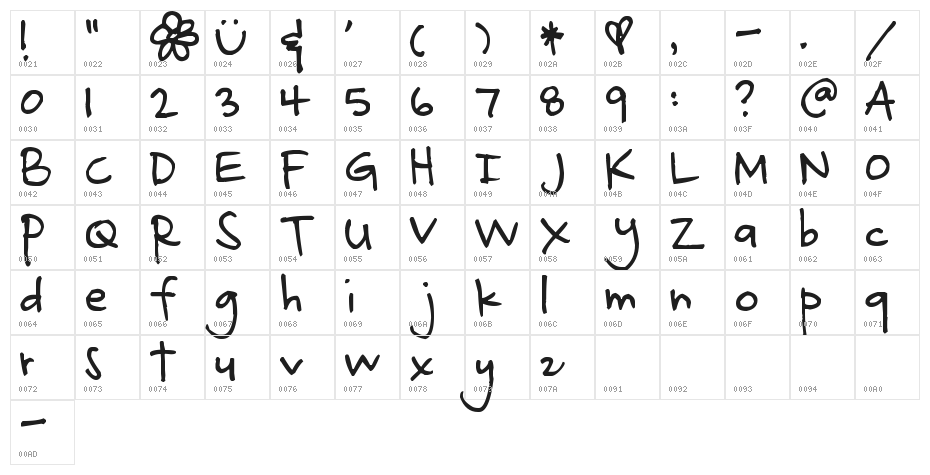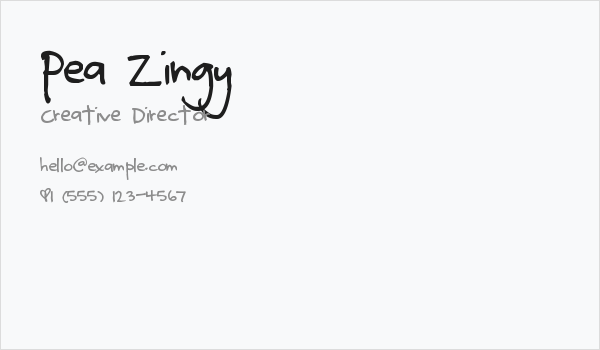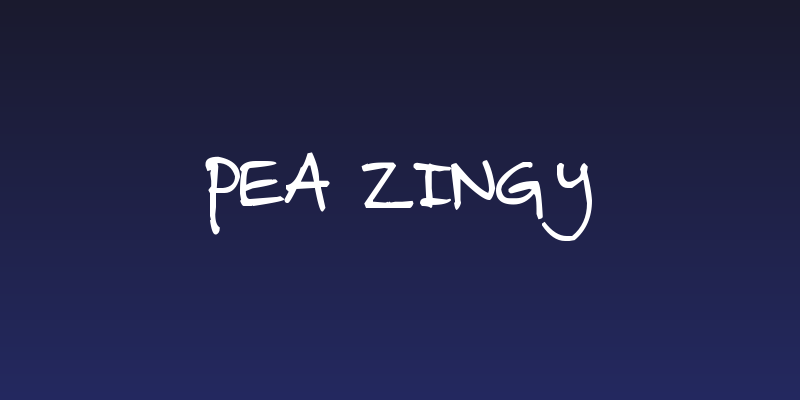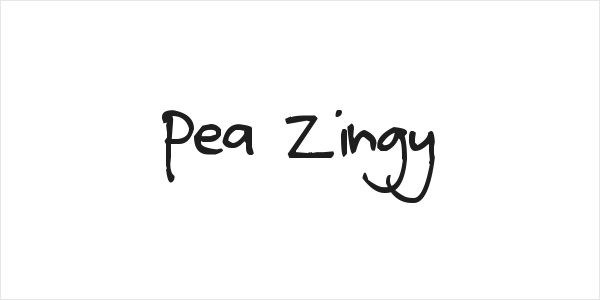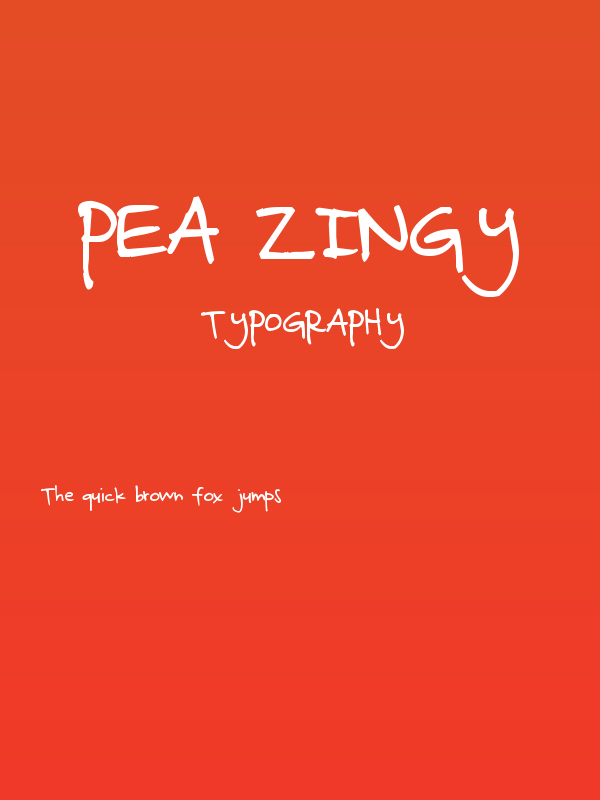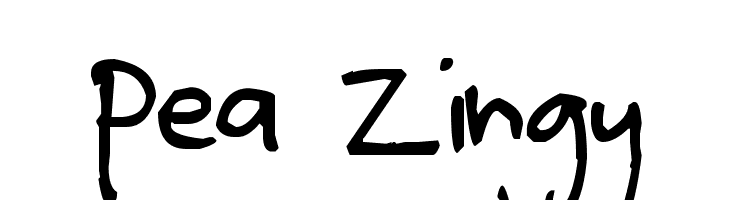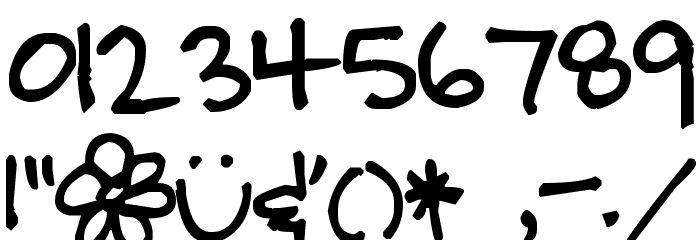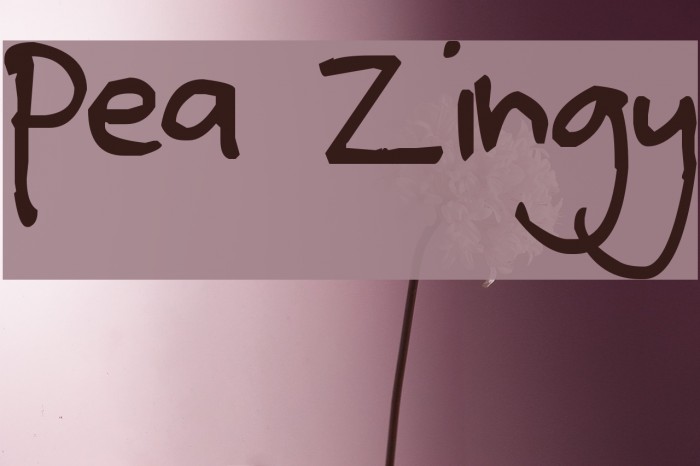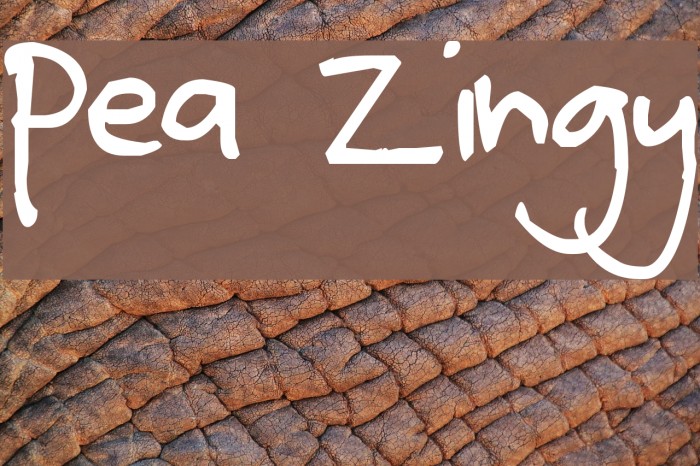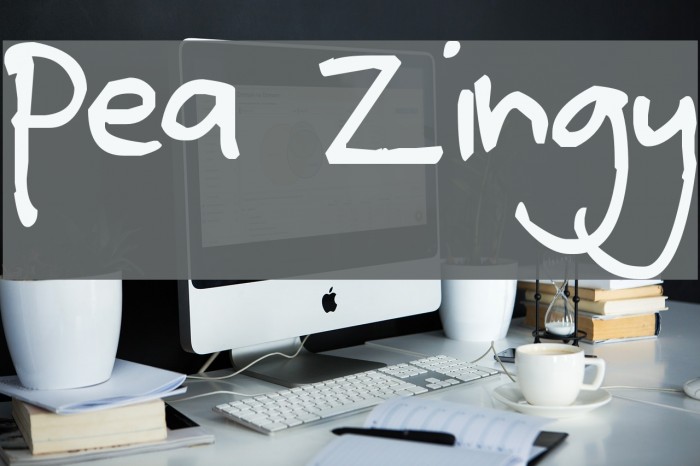
Pea Zingy Font
Pea Zingy Description
This font exudes a playful and informal vibe with its handwritten style. The characters are slightly irregular, giving it a personal touch that mimics natural handwriting. The strokes are bold and consistent, with a medium contrast that enhances readability while maintaining a casual appearance. The letters are well-spaced, ensuring clarity and legibility. This font is perfect for projects that require a friendly and approachable aesthetic, such as personal blogs, creative projects, or children's materials. Its unique style makes it stand out, adding a touch of personality to any design.
| Overall Style | Casual, Playful |
| Use Case | Headlines, Informal text, Creative projects |
| Proposed Projects | Ideal for personal blogs, creative projects, children's materials, and informal branding. |